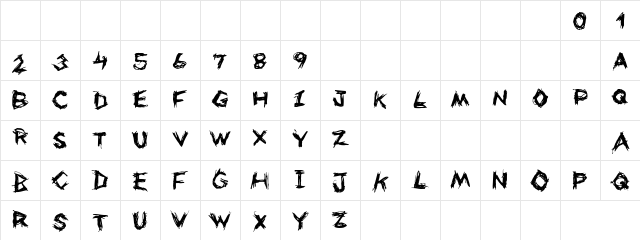
Uneasy Regular Free Font
Uneasy Regular
Designer: S. John Ross
Design Context for Uneasy
Uneasy is a composed and adaptable typeface that performs quietly and consistently across a wide range of design contexts.